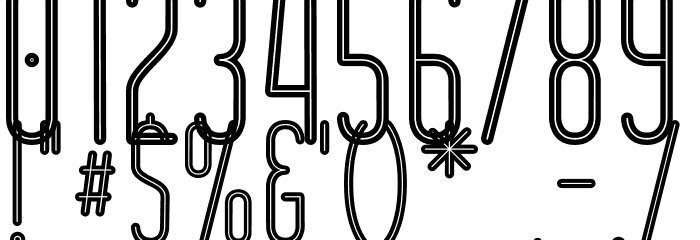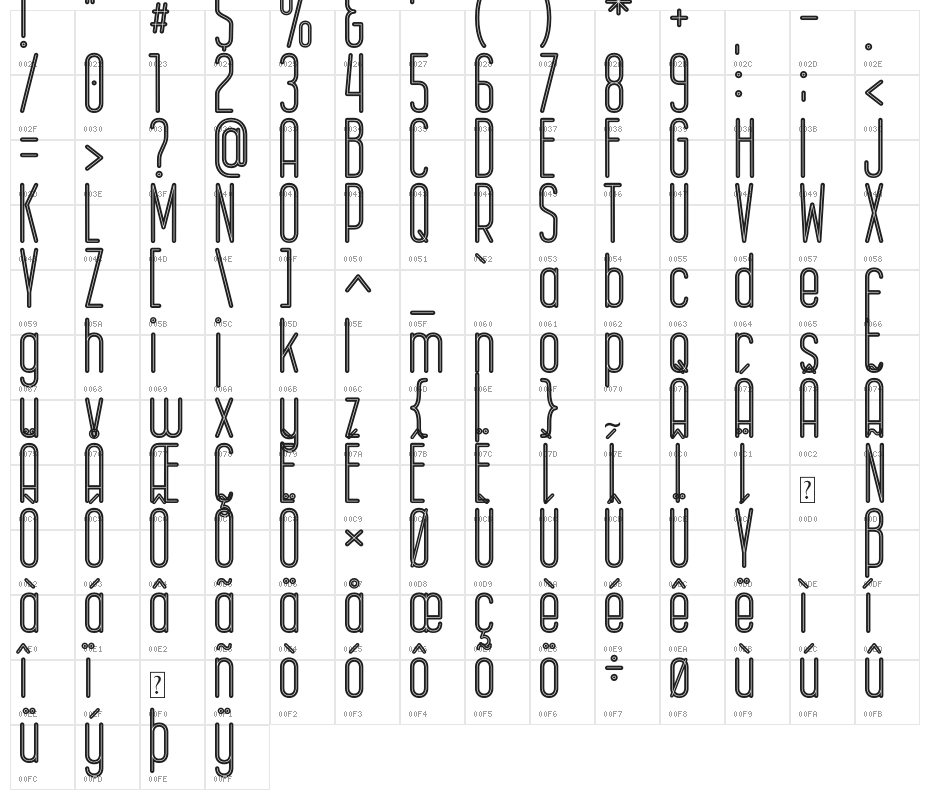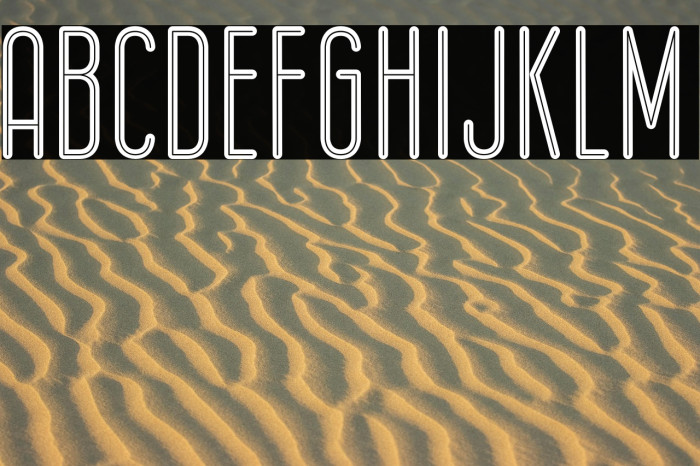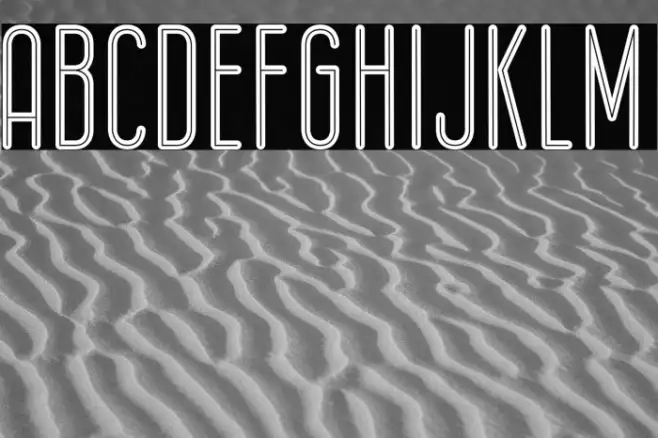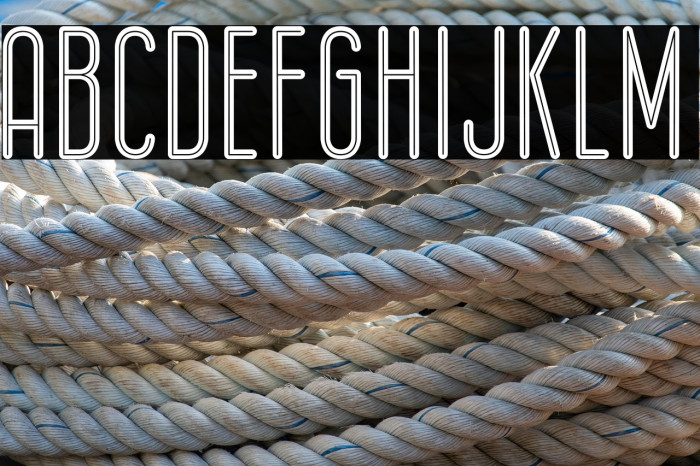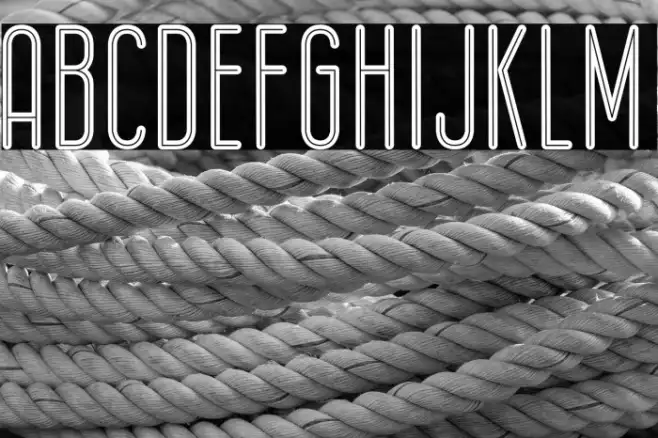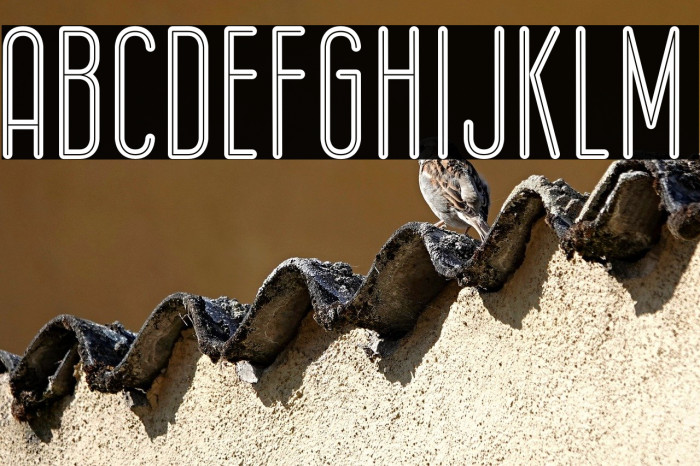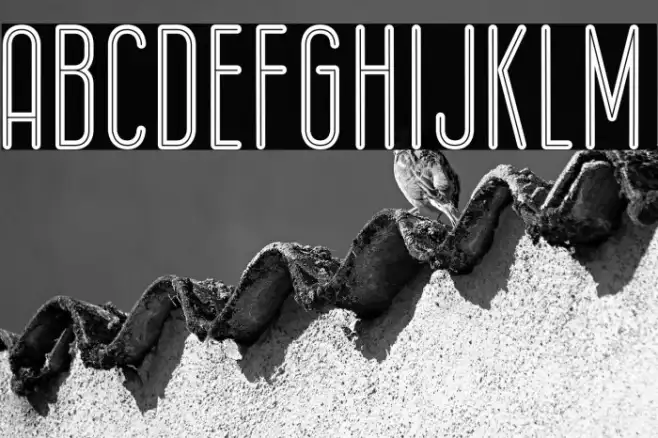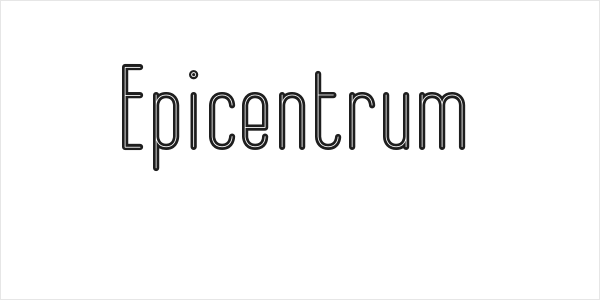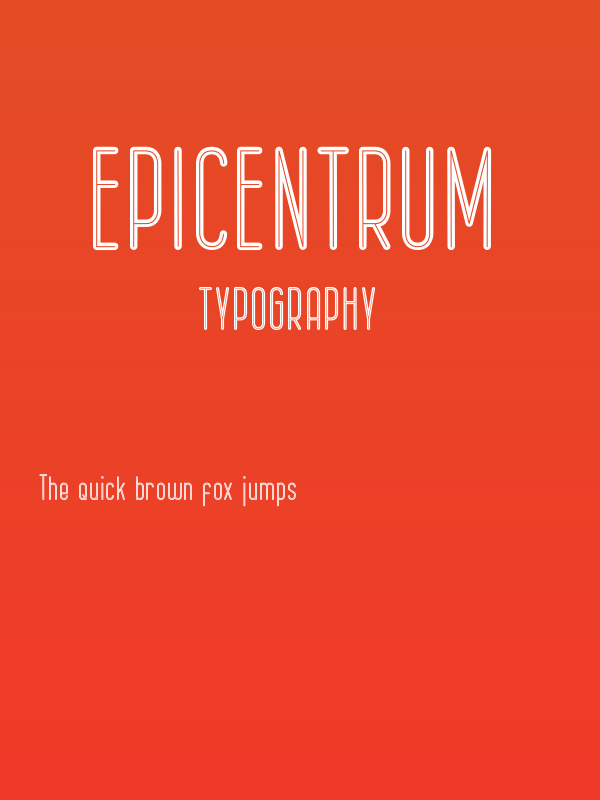
Epicentrum Font
Epicentrum Description
This font features a unique and modern design with a double-line structure that gives it a distinctive and eye-catching appearance. The uppercase and lowercase letters are tall and narrow, with consistent stroke widths that create a clean and streamlined look. The numerals and special characters maintain the same double-line style, adding to the cohesive aesthetic. The font's geometric shapes and minimalistic design make it suitable for contemporary projects that require a bold statement.
| Proposed Projects | Ideal for branding, posters, headlines, and any design project that requires a modern and distinctive look. |